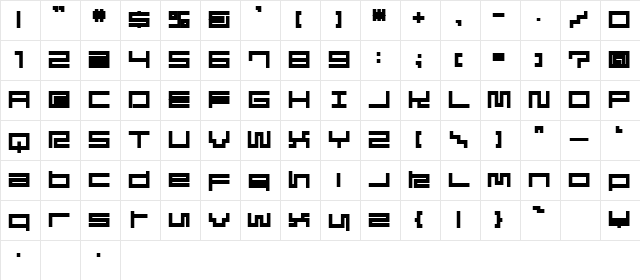
ES Bold Font Preview
ES Bold
Design Context for ES Typeface
ES is a composed and adaptable typeface that performs quietly and consistently across a wide range of design contexts. Its bold stroke weight gives it real presence on the page.